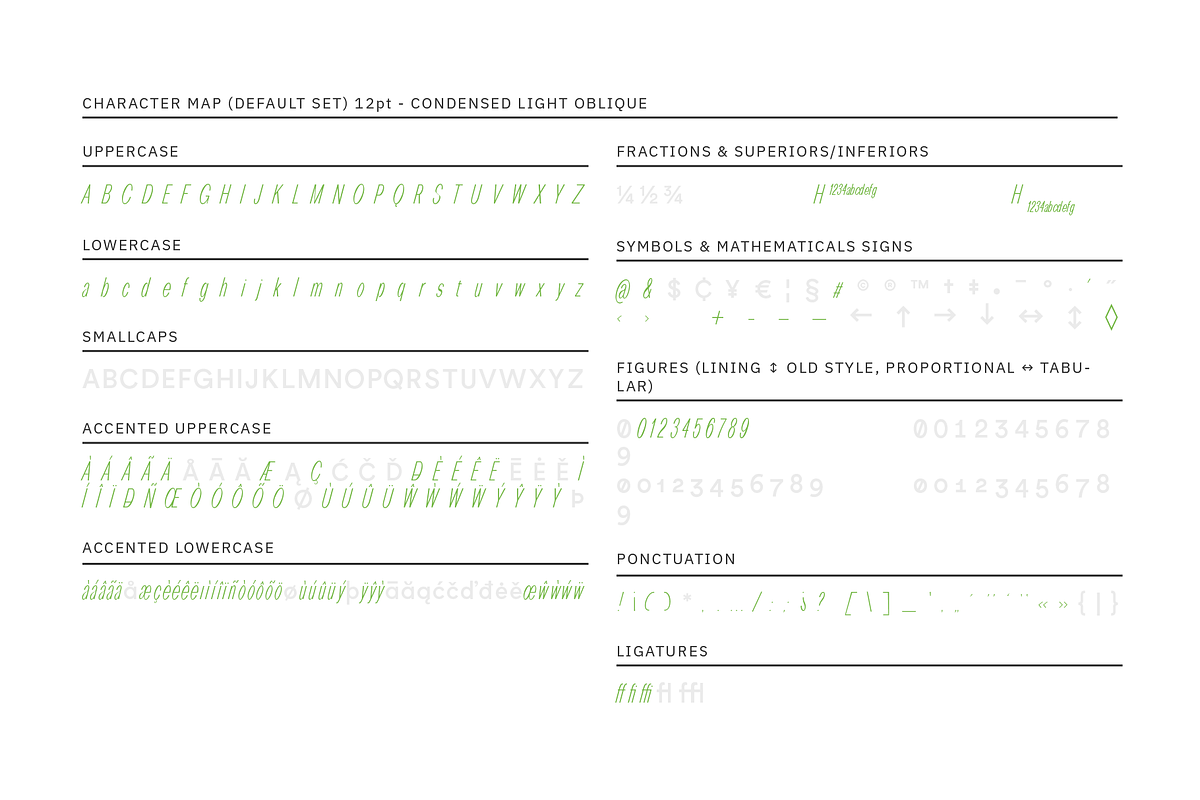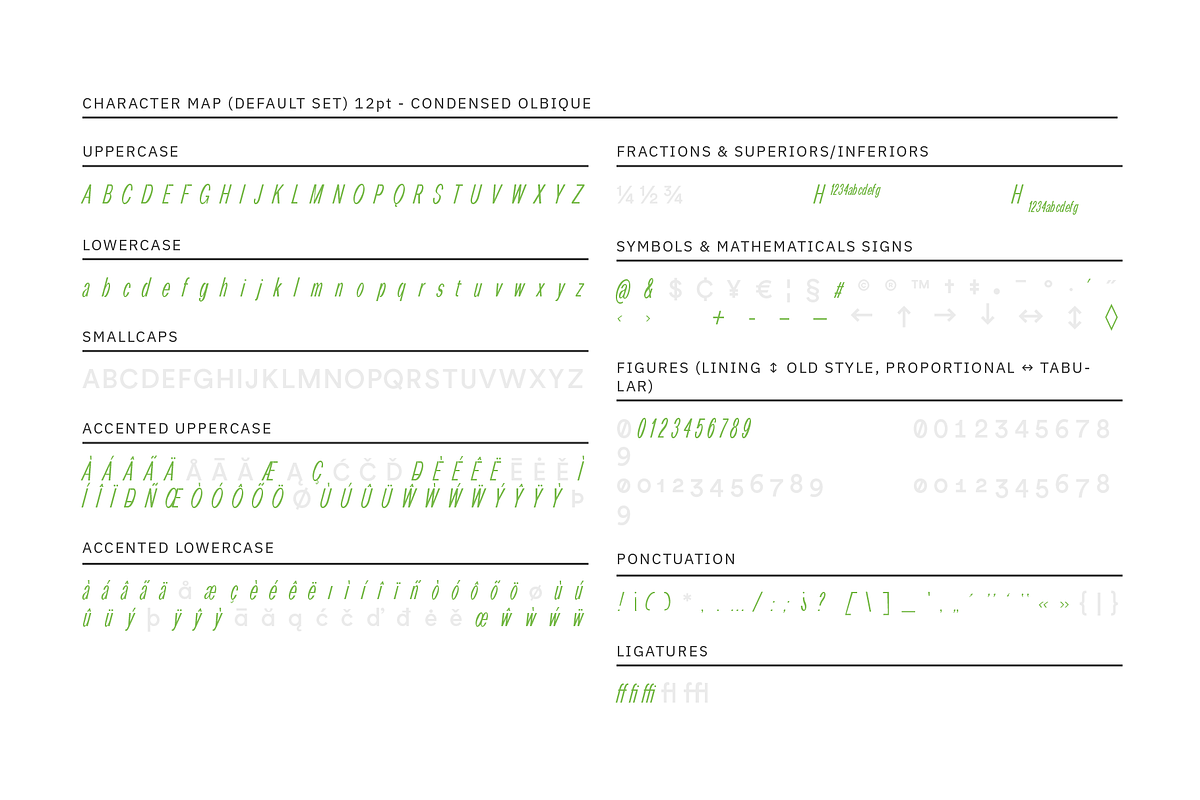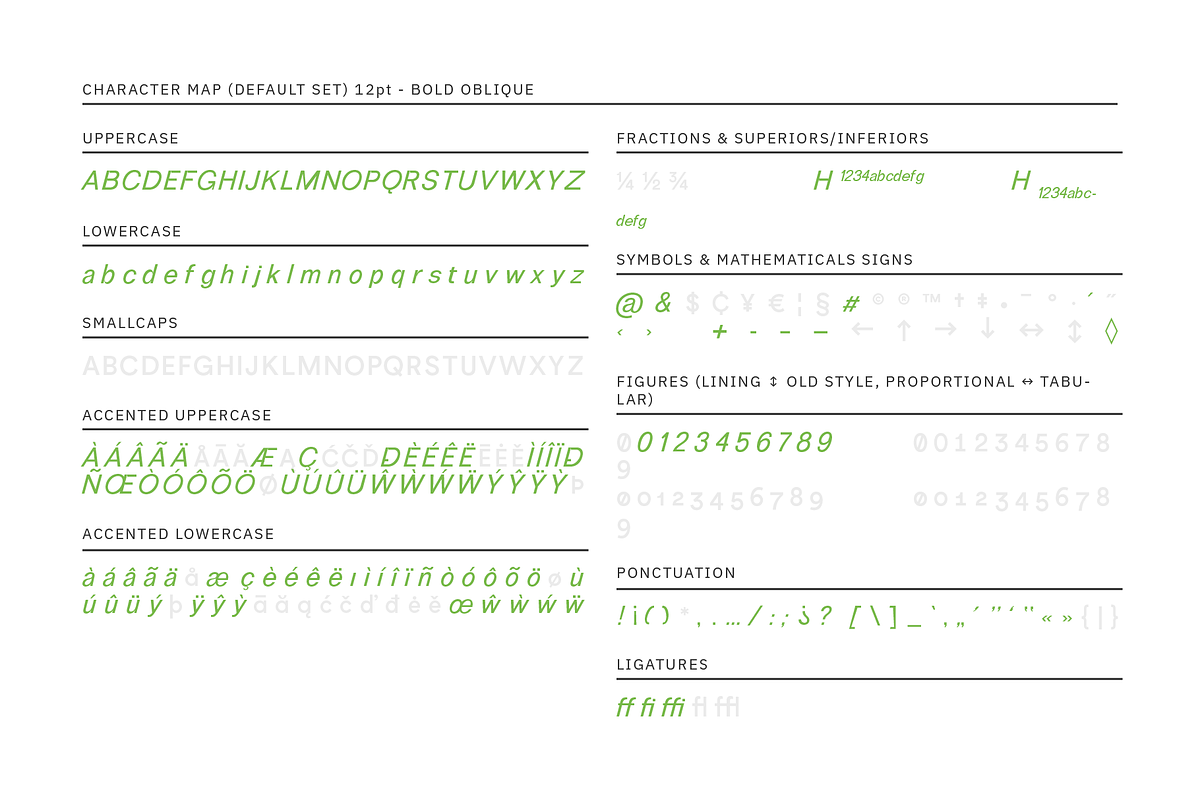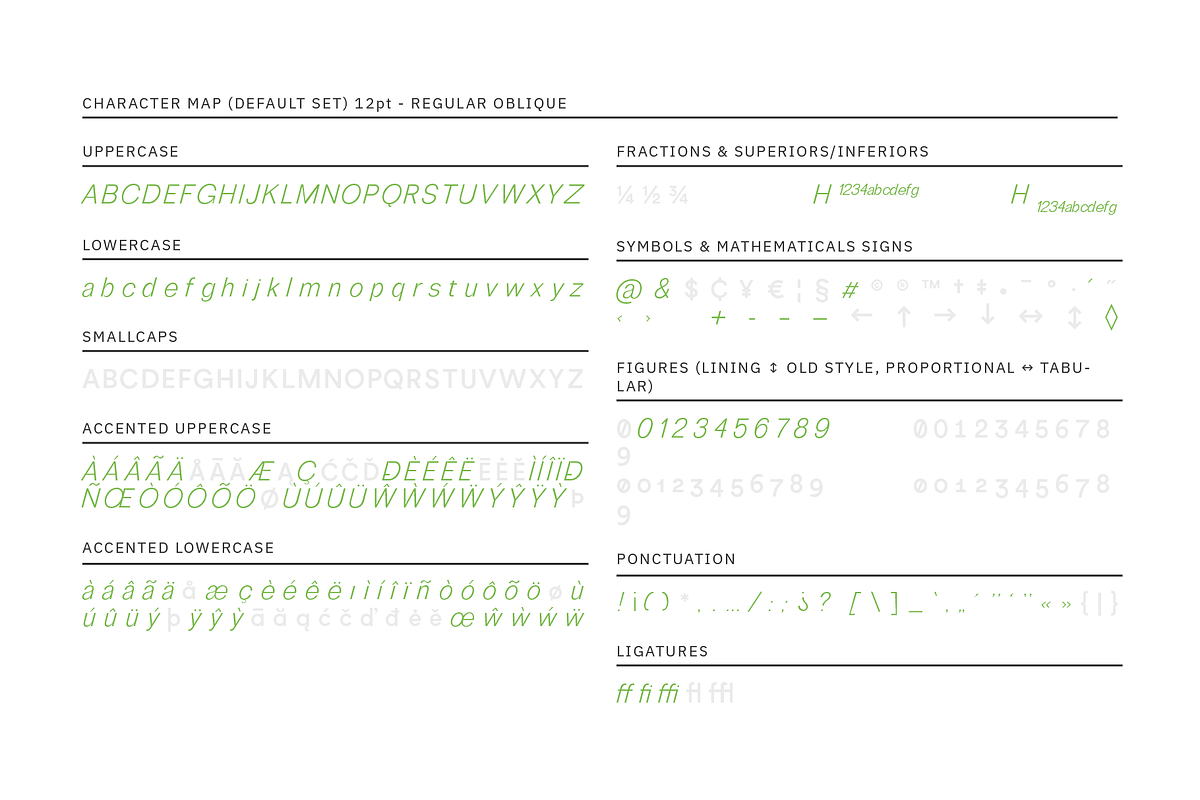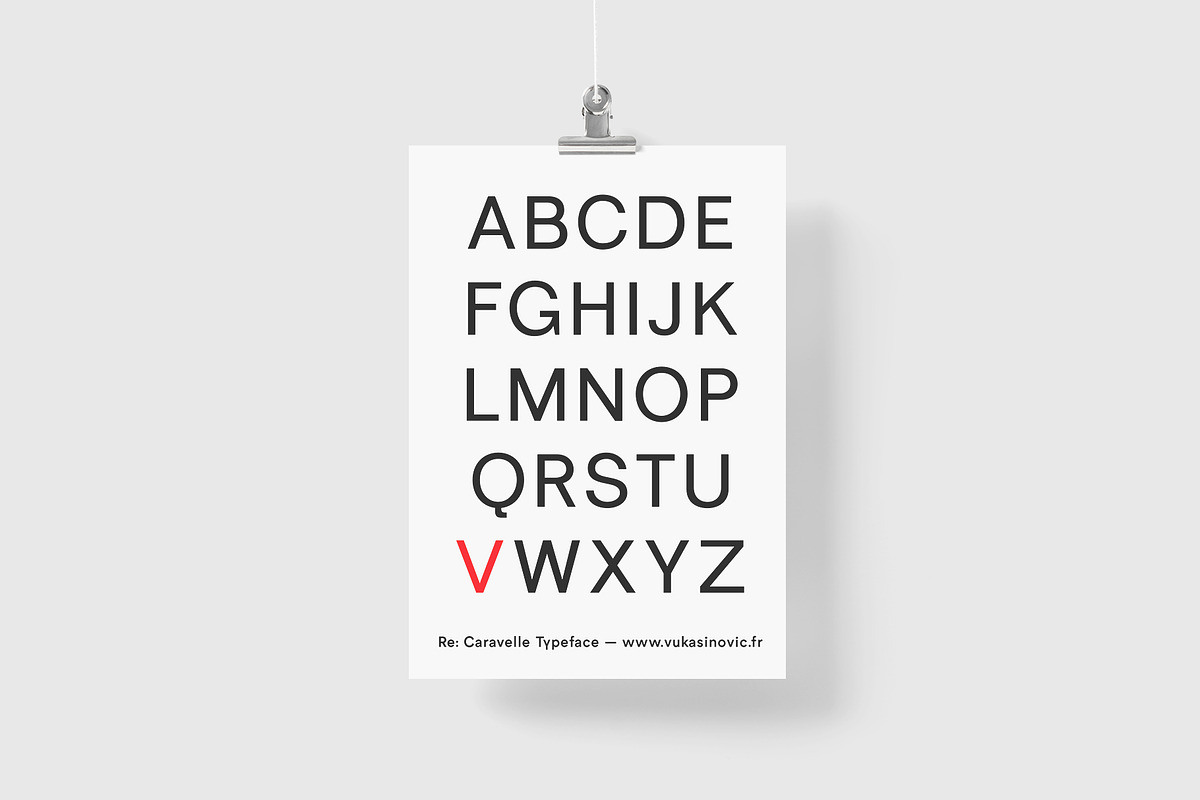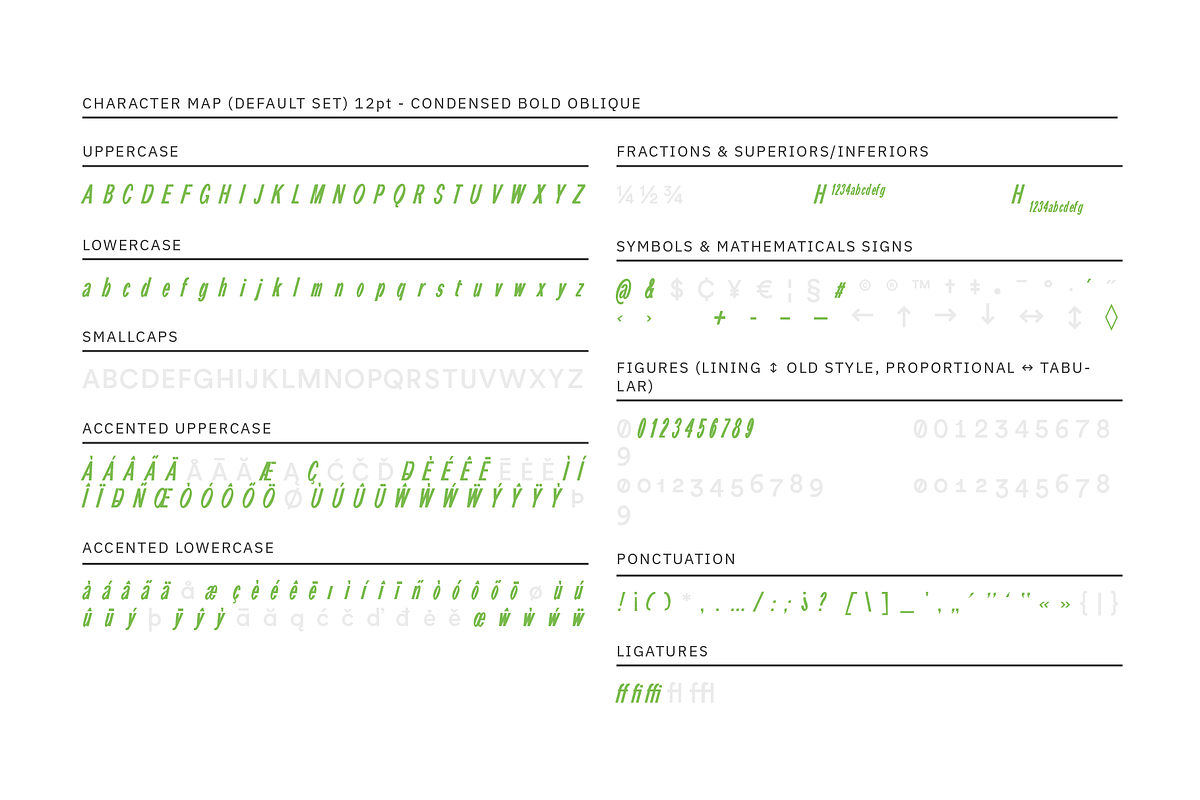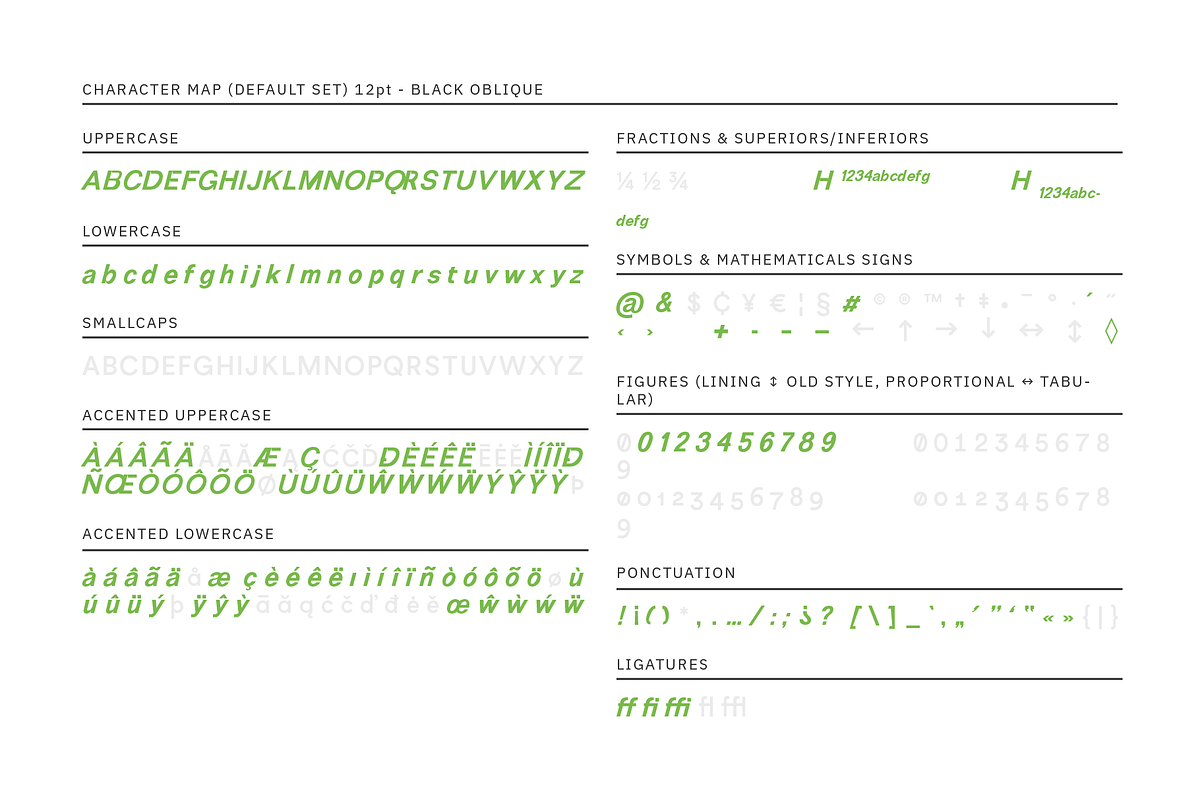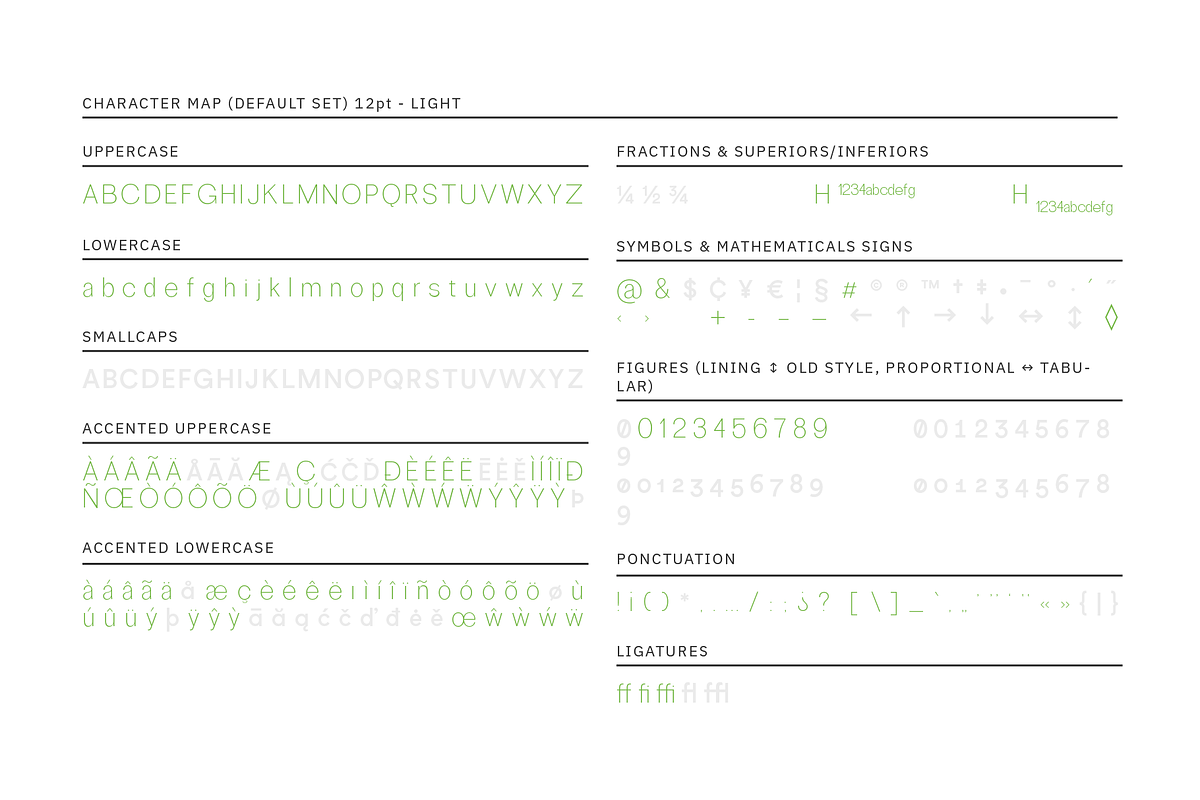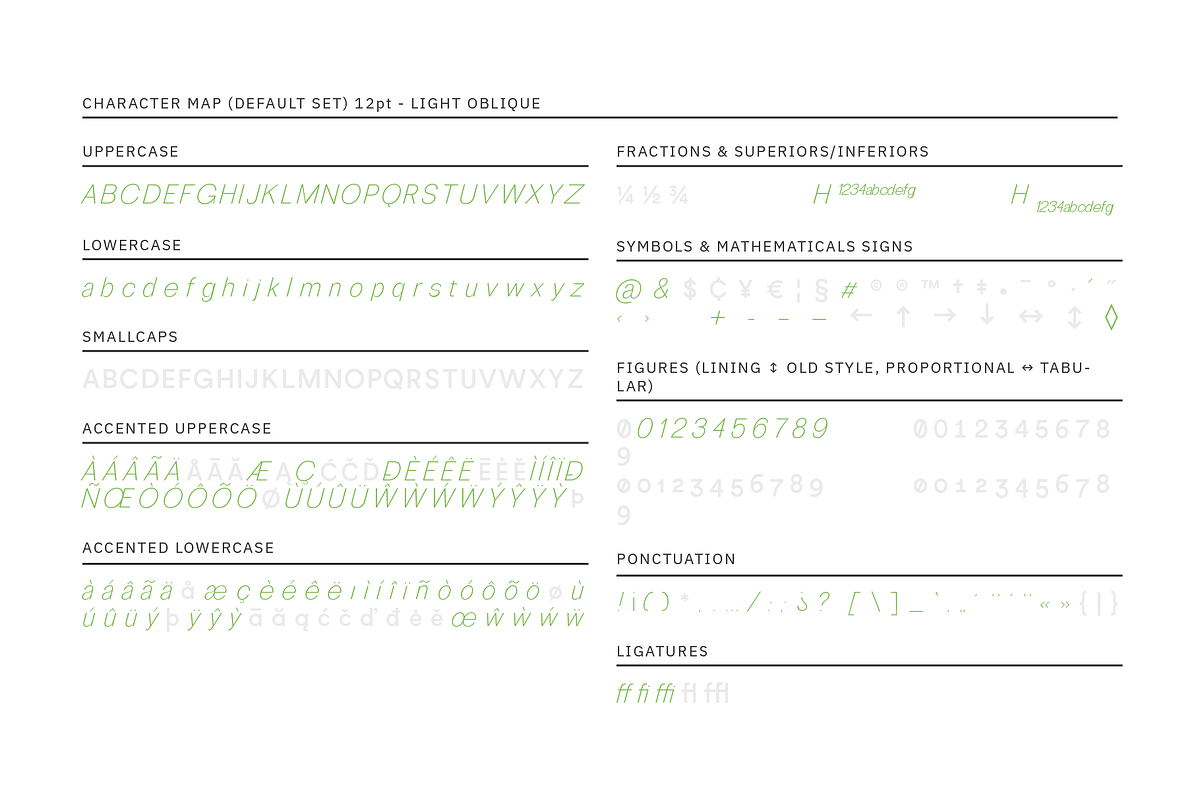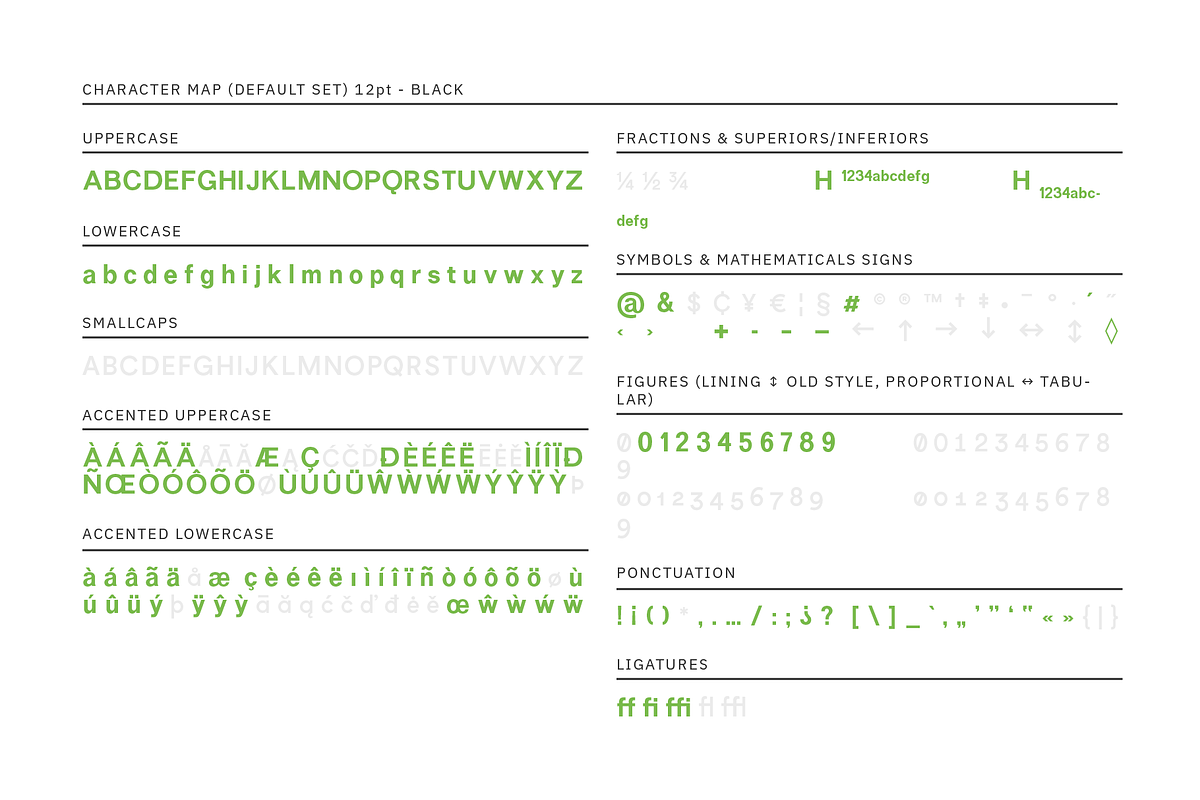
RE:Caravelle Super Family (27 fonts)
RE: CARAVELLE Super Family
RE: CARAVELLE is a sans serif fonts family. Revival of a lead case, she experiments with curves and modules to find her balance point in a clever way.